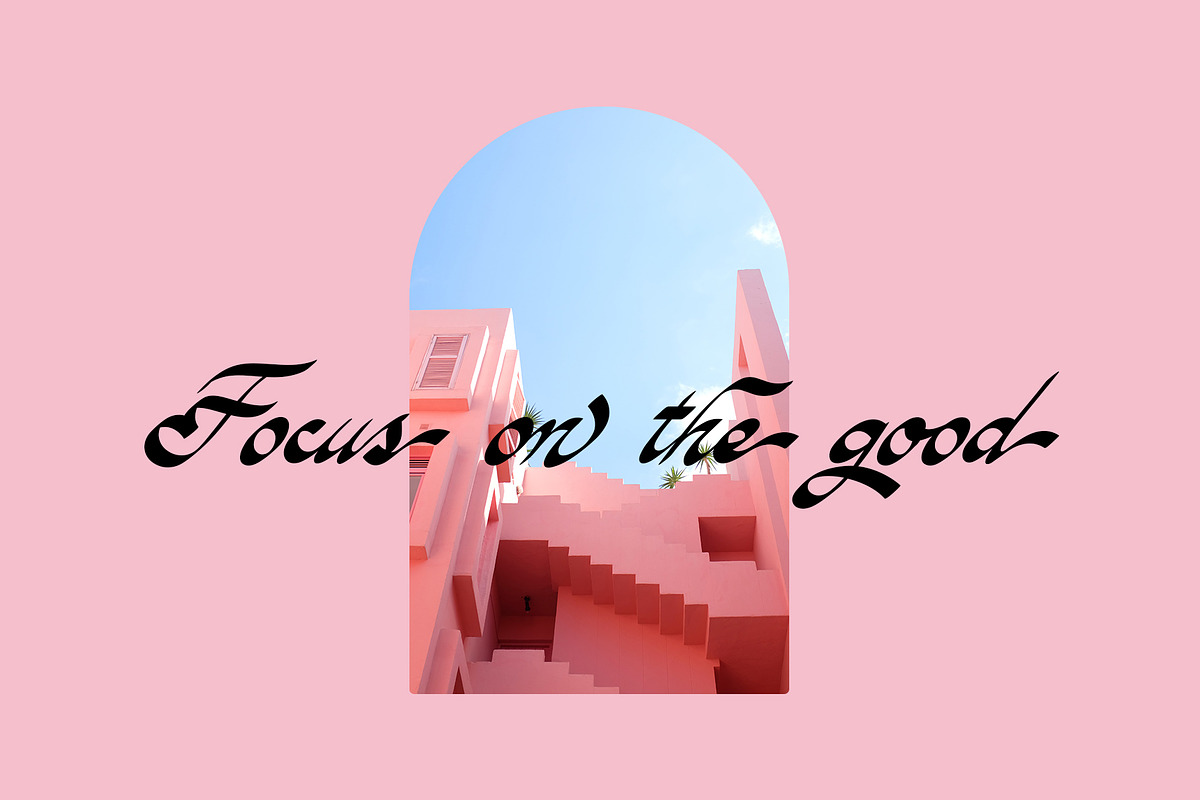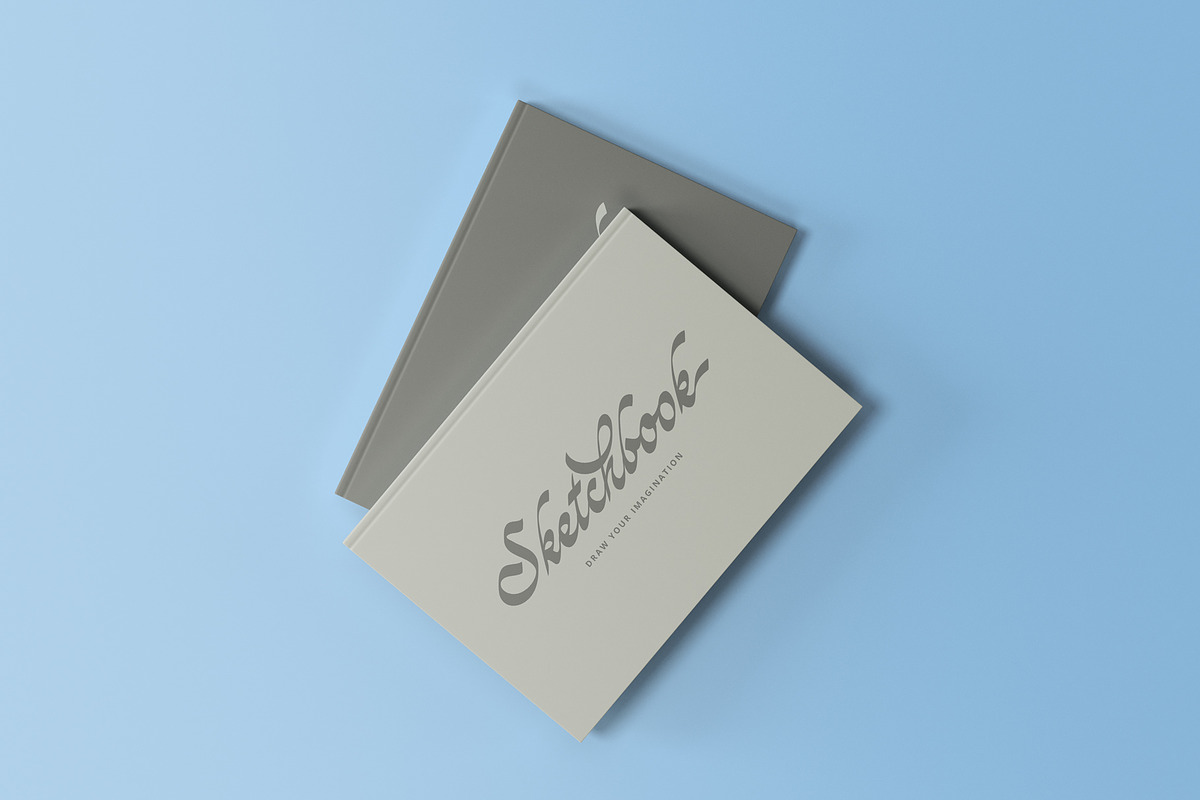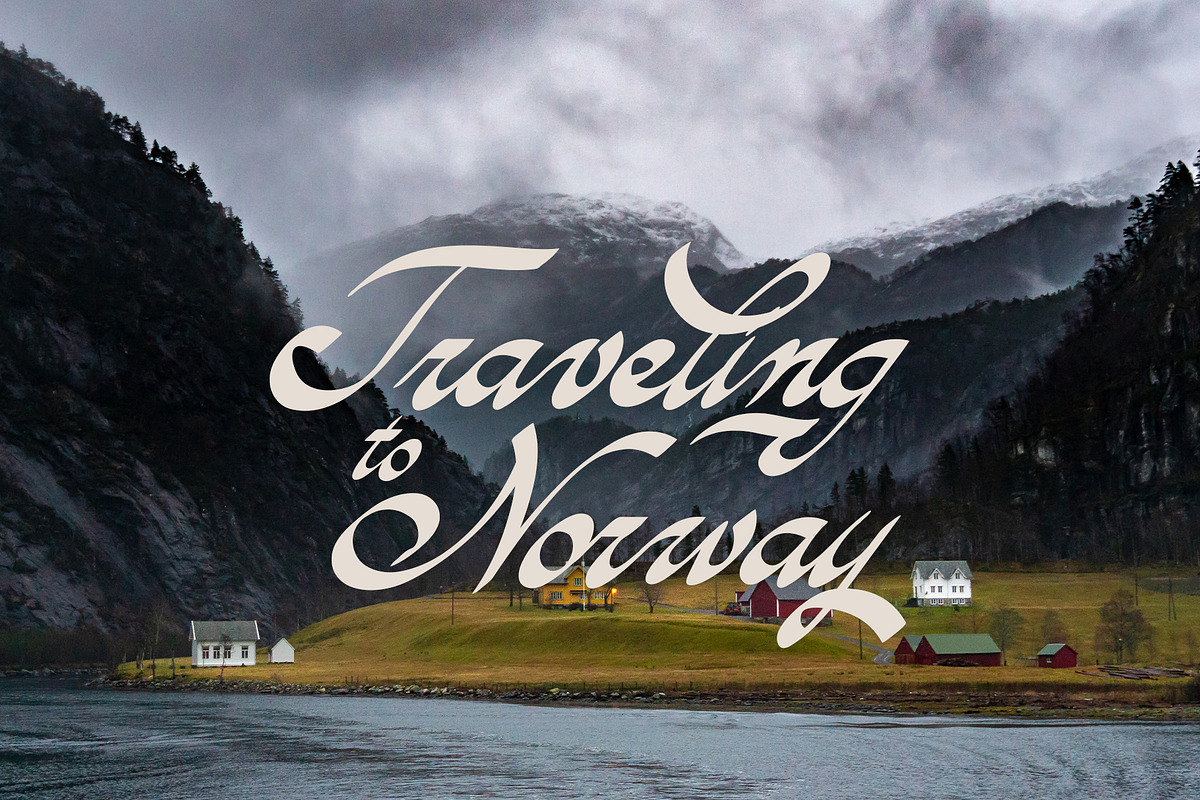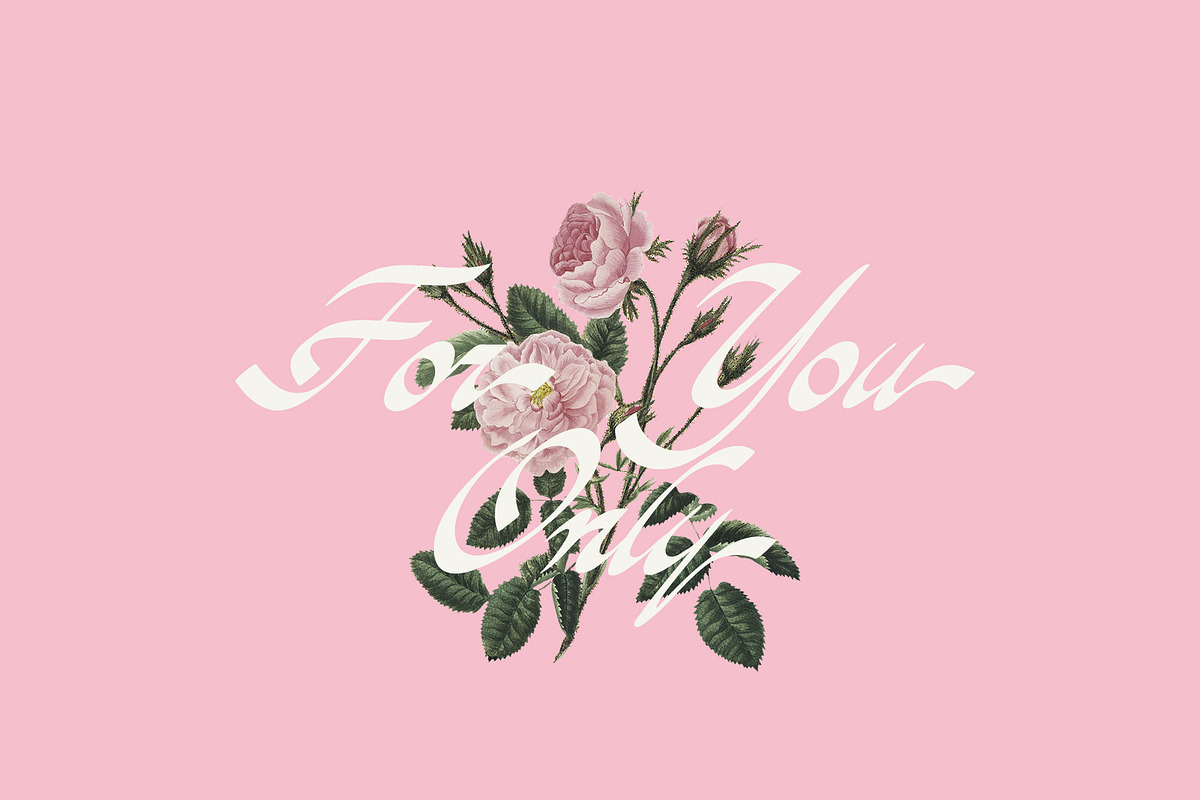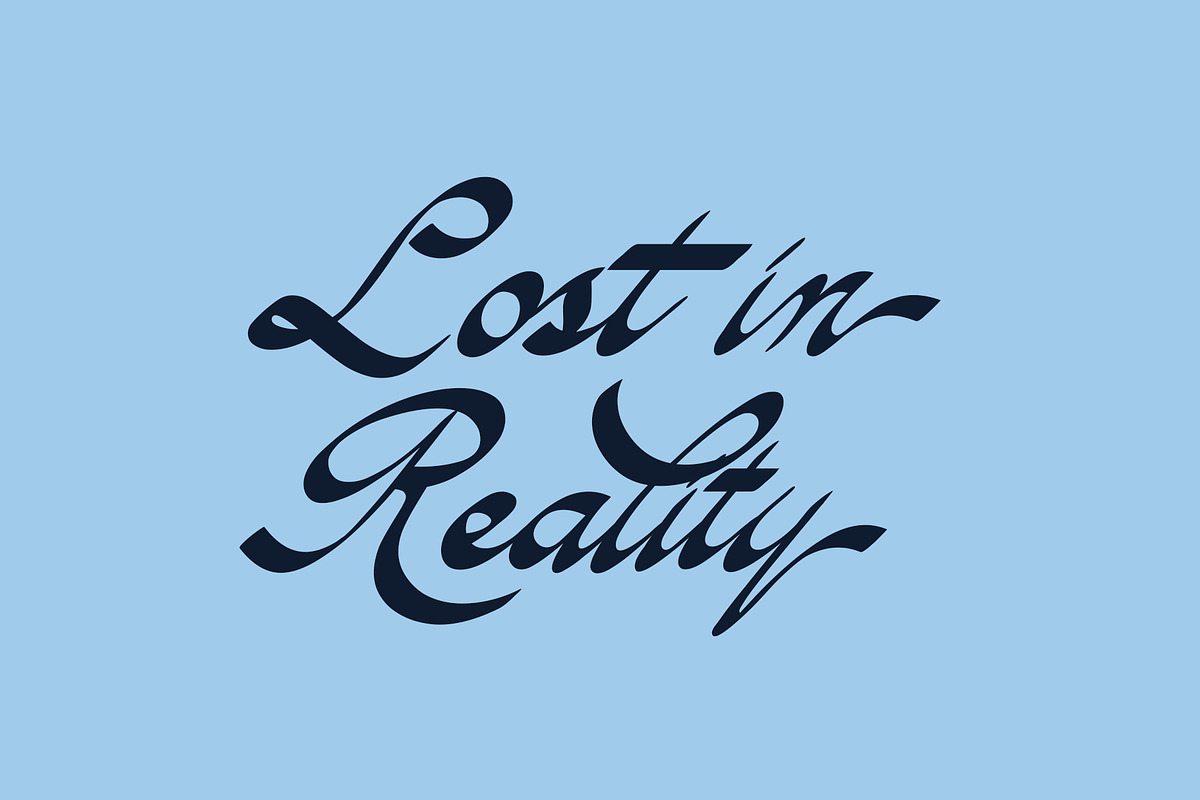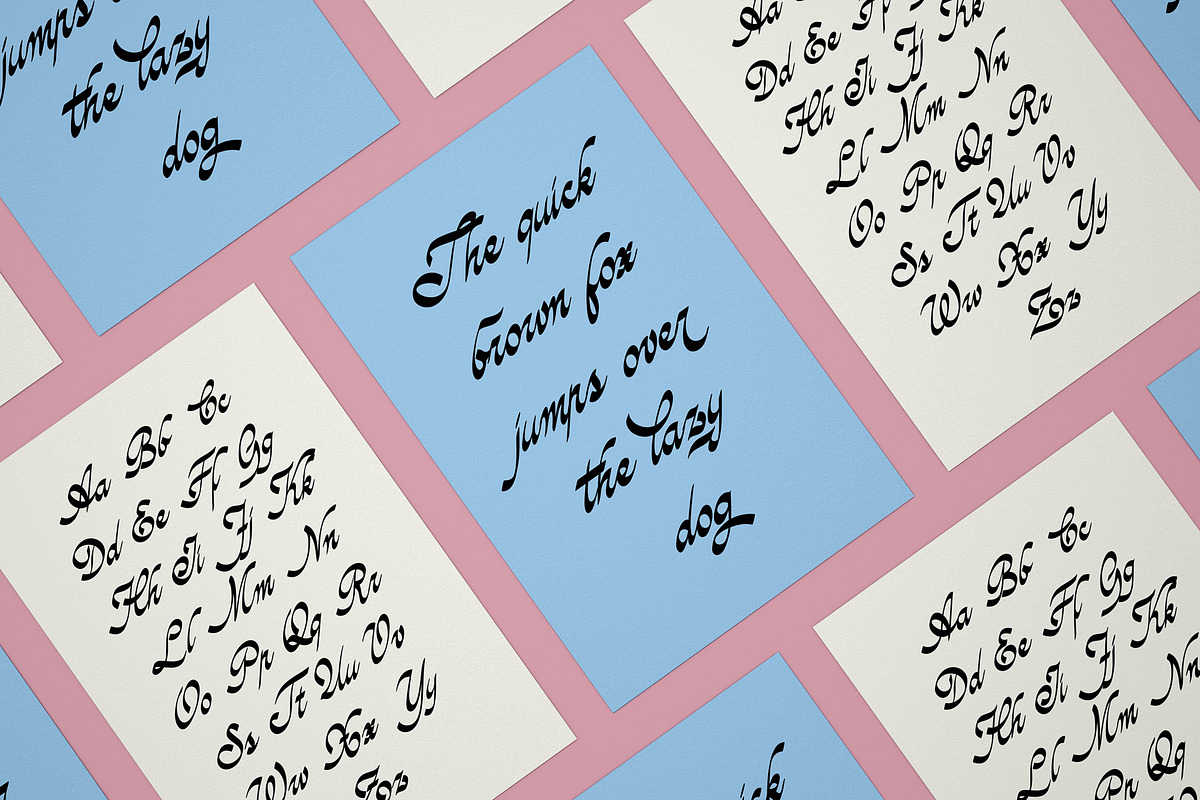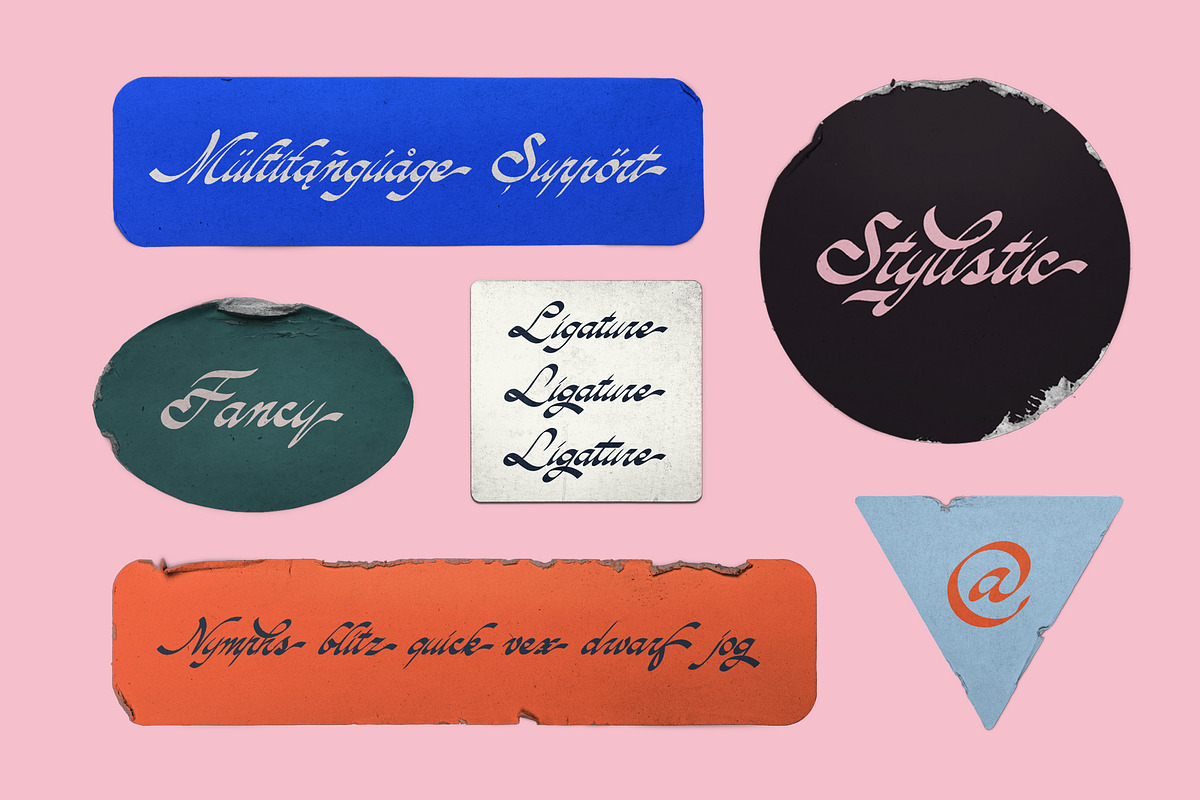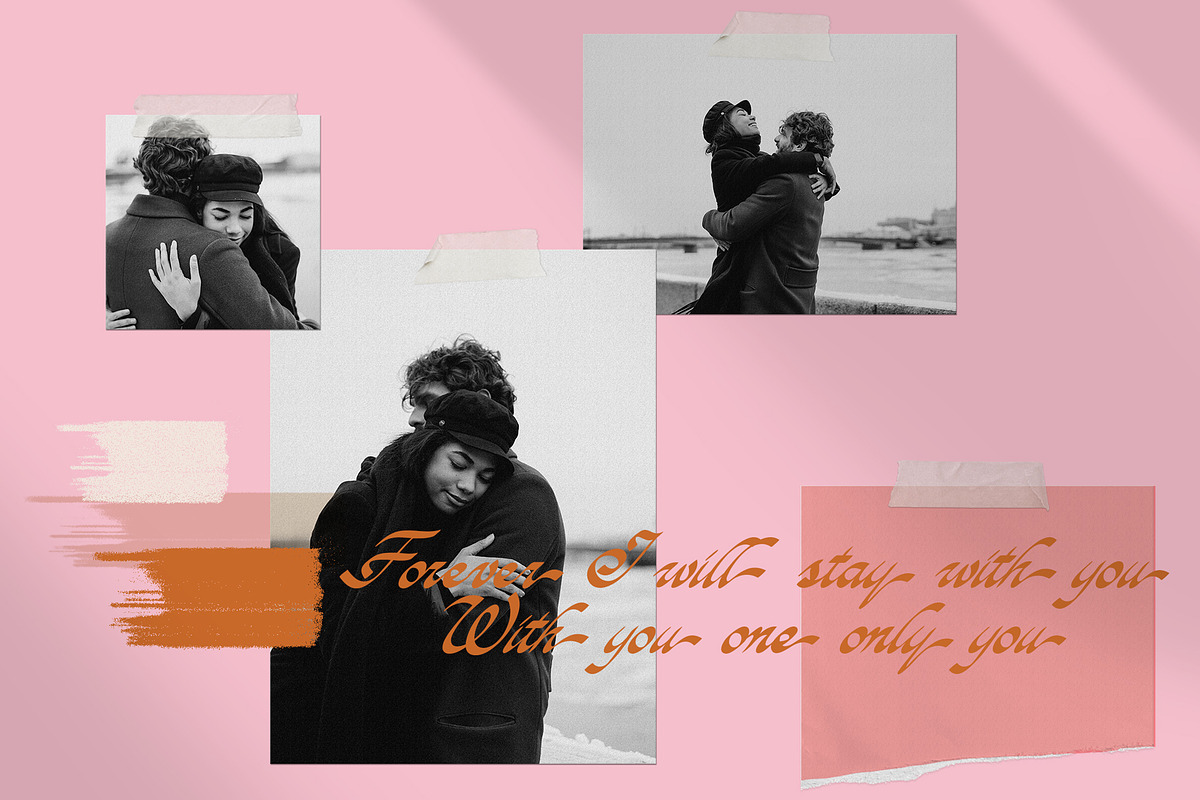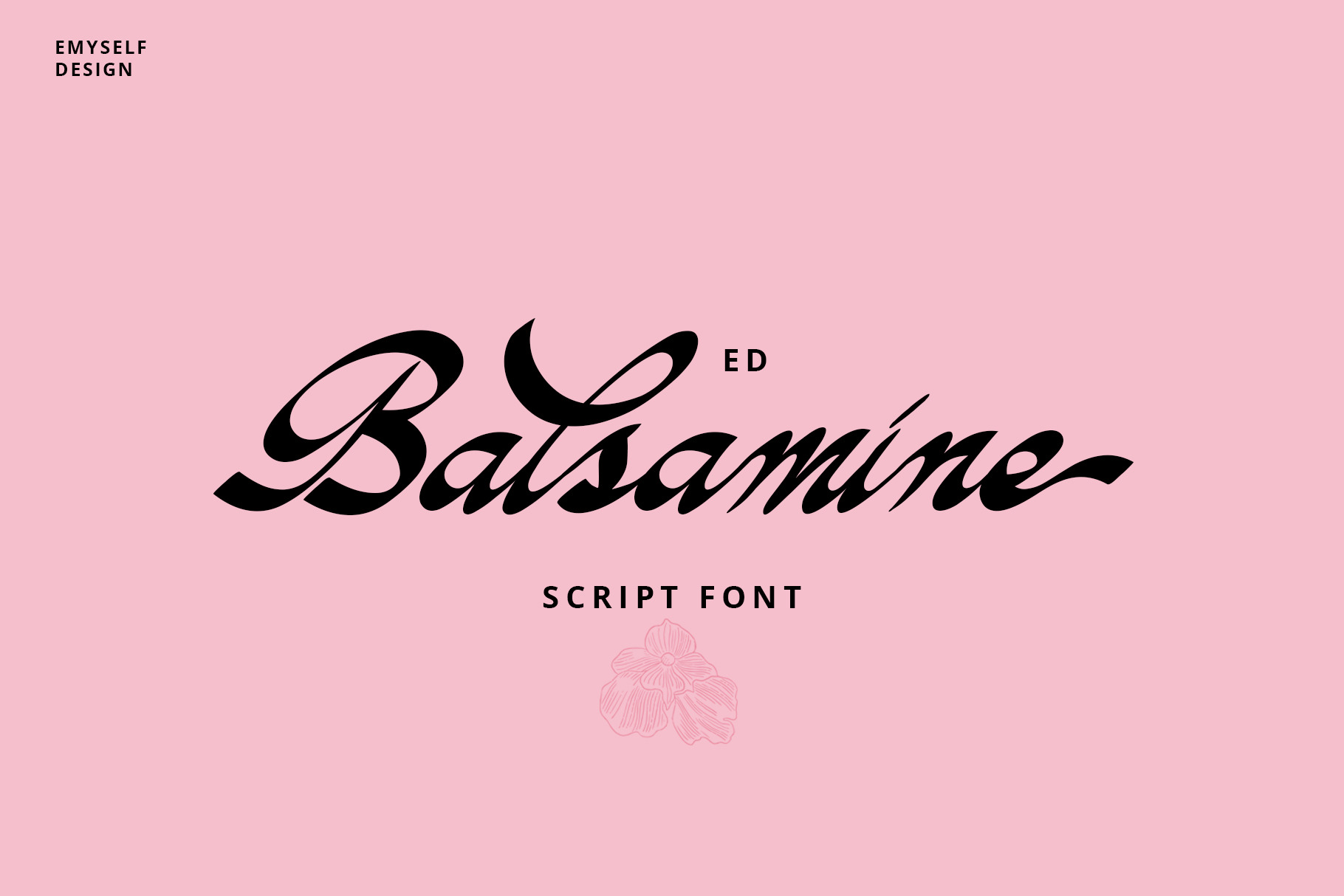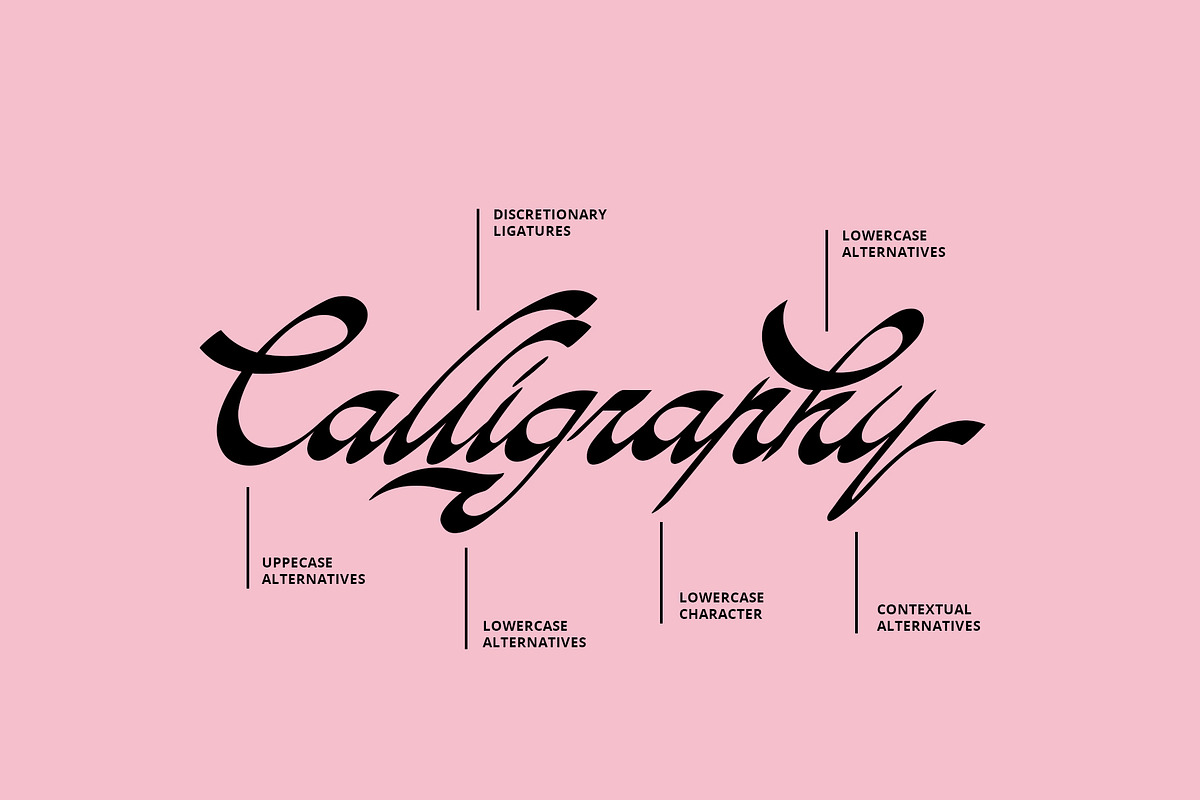
ED Balsamine script font
ED Balsamine is a script font with elegant style, bold and looks a little fancy. The idea is from the previous script font, this font is made with a calligraphy brush pen ( for blackletter ), to make it easier to use and combine with other fonts, and to add to the function of using fonts.
This font is equipped with open types such as: ligature, Stylistic Sets, and also the final Contextual Alternative . Besides this font also supports multi languages.
You can mix and match your best combination. And besides this font is suitable for your design needs such as: poster design, magazines, logos, branding, packaging and much more.